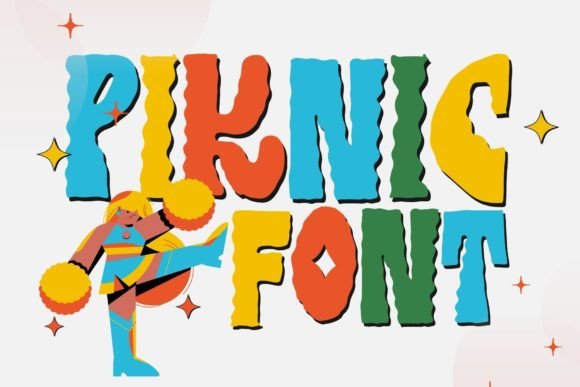
Introducing Piknic Font – the best fonts for writing thesis! If you're looking to create a unique and captivating thesis, then Piknic is the perfect solution for you. This hand painted typeface is designed to give your work the stunning look of custom hand-lettering, making it stand out from the rest.
Piknic Font is a display font that boasts creativity, versatility, and originality. Created by Maghrib, it's a perfect choice for anyone who wants to make a bold statement with their writing. Whether you're writing a quote, designing a poster, creating a logo, or developing print and digital ads, Piknic will help your work look professional and eye-catching.
With its smooth brush strokes and effortless style, Piknic is the perfect font for anyone who wants to create something truly unique. It's a great choice for thesis writers who want to stand out from the crowd, and it's also a great choice for designers who want to add a touch of creativity to their work.
This lovely display font is not just for writing thesis. It's also perfect for creating promotional products, video bumpers, and anything else that needs a touch of creativity. Piknic Font is a must-have for anyone who wants to create something truly special.
So why should you download Piknic Font? Simple. It's the best fonts for writing thesis that will help you create a unique, eye-catching work that stands out from the rest. Whether you're a student or a professional, Piknic is the perfect tool to help you create something truly special.